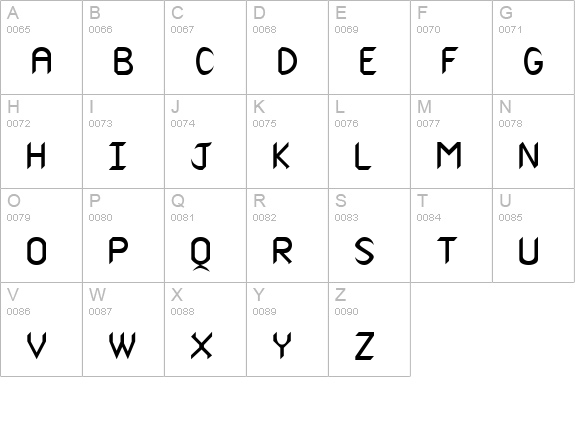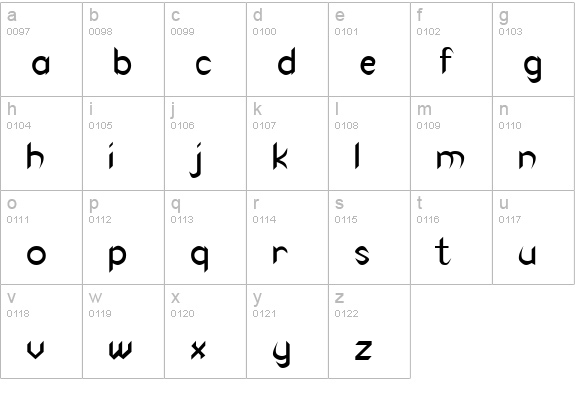
Canaith Regular is the standard, neutral variant in the Canaith typeface family \xE2\x80\x94 well suited to general body text, paragraphs, and standard typographic work.
Canaith Regular is a modern and versatile font that exudes elegance and sophistication. With its clean lines and balanced proportions, Canaith Regular is perfect for a wide range of design projects, from branding to editorial design. This font is designed to be legible and easy on the eyes, making it suitable for both print and digital applications. Canaith Regular is available for free download at FontsMarket.com, where you can access this high-quality font for all your creative needs without any cost. Whether you are working on a logo, website, or print materials, Canaith Regular's timeless appeal and versatility make it a valuable addition to your design toolkit. Download Canaith Regular today and elevate your designs with this beautifully crafted typeface.